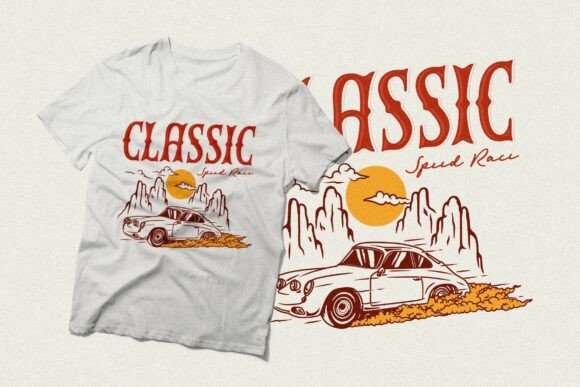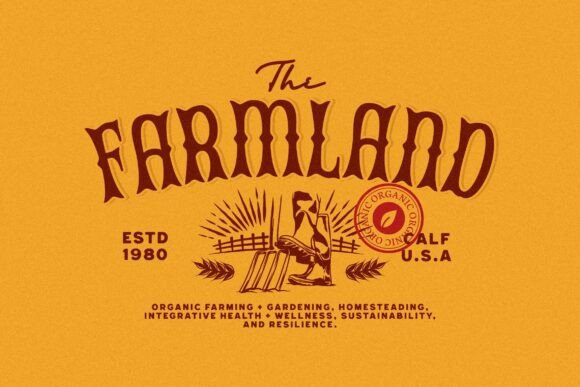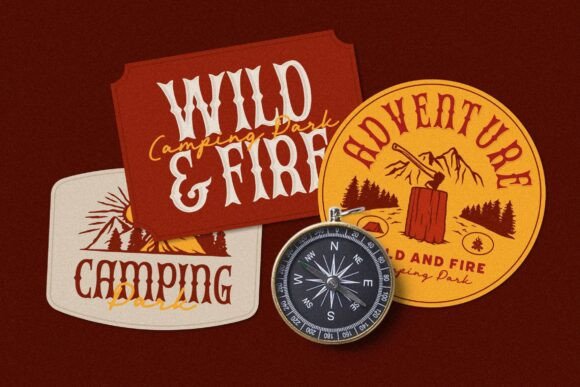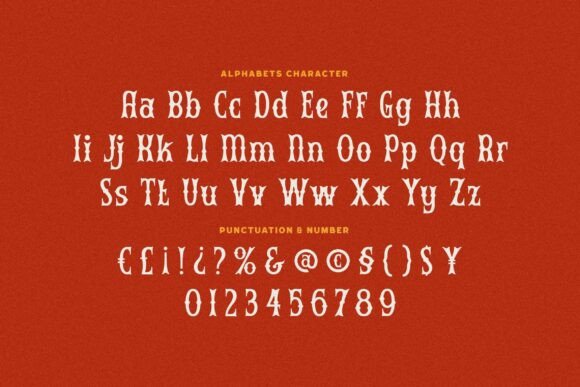
Introducing Biokes Font: The Ultimate Vintage Display Font for Retro-Inspired Designs
Are you looking for a font that can add a touch of nostalgia and rugged charm to your designs? Look no further than Biokes Font, a vintage display font that embodies the spirit of classic Americana and rustic vibes. With its distinctive, slightly distressed serif letterforms, Biokes Font is perfect for designers and crafters who want to create vintage-themed branding, retro posters, signage, t-shirt designs, and outdoor, adventure, or travel-related designs that evoke a sense of adventure and freedom.
The Characteristics of Biokes Font
Biokes Font boasts a unique, hand-crafted feel that sets it apart from other fonts. Its serif letterforms feature uneven edges and quirky curves, giving it a slightly distressed look that’s reminiscent of old-school signs and posters. The font’s retro vibe is perfect for designs that want to evoke a sense of nostalgia and timelessness, while its rugged charm makes it ideal for outdoor, adventure, and travel-related designs.
What Makes Biokes Font So Versatile?
Biokes Font is an incredibly versatile font that can be used for a wide range of design projects. Whether you’re creating vintage-themed branding, retro posters, signage, t-shirt designs, or outdoor, adventure, or travel-related designs, Biokes Font is the perfect choice. Its classic Americana and rustic vibes make it ideal for designs that want to channel a sense of adventure, freedom, and nostalgia.
Biokes Font is a must-have for designers and crafters who want to add a touch of retro charm to their designs. With its unique, hand-crafted feel and distressed serif letterforms, Biokes Font is perfect for creating designs that stand out from the crowd. Whether you’re designing for print or digital, Biokes Font is a versatile font that can be used for a wide range of projects, from business cards and brochures to t-shirts and posters.
Use Cases for Biokes Font
So, what can you use Biokes Font for? Here are just a few ideas to get you started:
- Vintage-themed branding: Use Biokes Font to create logos, business cards, and other branding materials that evoke a sense of nostalgia and timelessness.
- Retro posters: Create eye-catching posters that advertise events, products, or services with a retro twist.
- Signage: Use Biokes Font to create signs that look like they’ve been around for decades, perfect for restaurants, bars, and other businesses that want to evoke a sense of nostalgia.
- T-shirt designs: Create unique and eye-catching t-shirt designs that feature Biokes Font and a retro vibe.
- Outdoor, adventure, and travel-related designs: Use Biokes Font to create designs that evoke a sense of adventure and freedom, perfect for outdoor gear companies, travel agencies, and other businesses that cater to adventure-seekers.
Tips for Using Biokes Font
Here are a few tips for using Biokes Font in your designs:
- Use it sparingly: Biokes Font is a bold font that can be overwhelming if used too much. Use it sparingly to create emphasis and add a touch of retro charm to your designs.
- Pair it with other fonts: Biokes Font looks great when paired with other fonts, such as sans-serif fonts or script fonts. Experiment with different font combinations to find the perfect look for your design.
- Experiment with colors: Biokes Font looks great in a variety of colors, from bold and bright to muted and earthy. Experiment with different colors to find the perfect look for your design.
| Font Name | Biokes Font |
| Author | imoodev |
Biokes Font is a unique and versatile font that’s perfect for designers and crafters who want to add a touch of retro charm to their designs. With its distinctive, slightly distressed serif letterforms and rugged charm, Biokes Font is ideal for vintage-themed branding, retro posters, signage, t-shirt designs, and outdoor, adventure, or travel-related designs. So why wait? Download Biokes Font today and start creating designs that evoke a sense of nostalgia and timelessness.